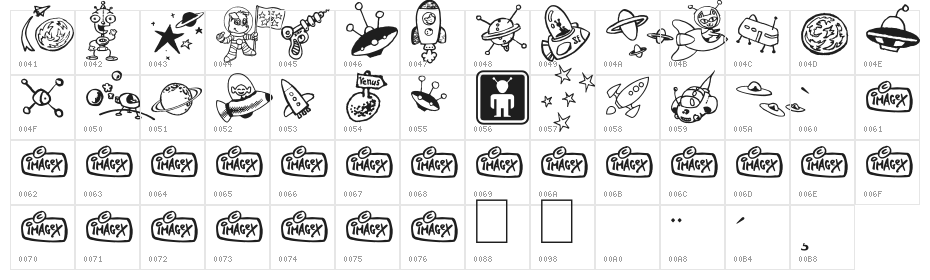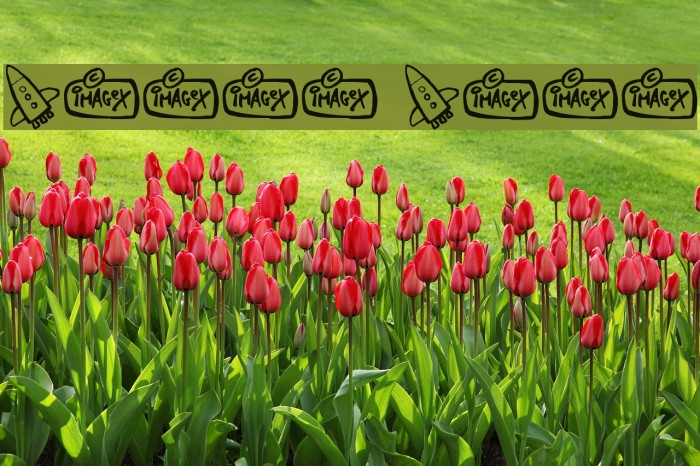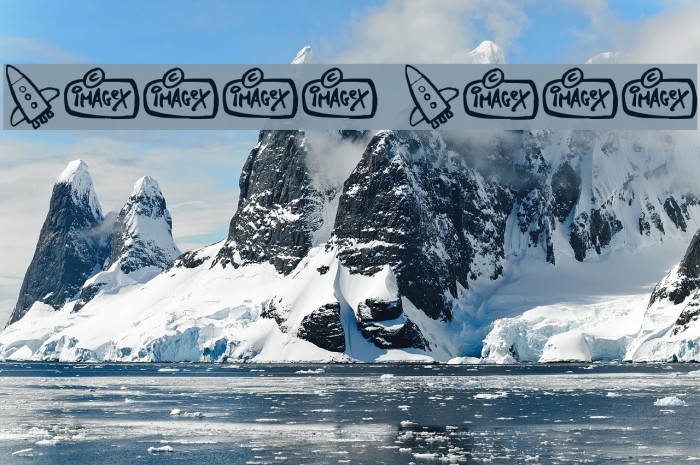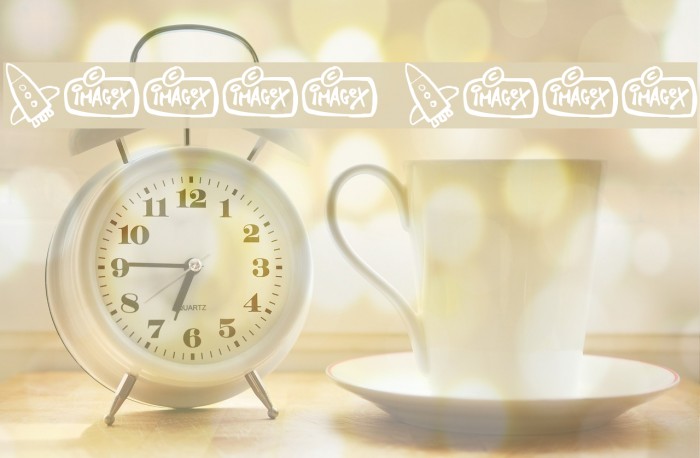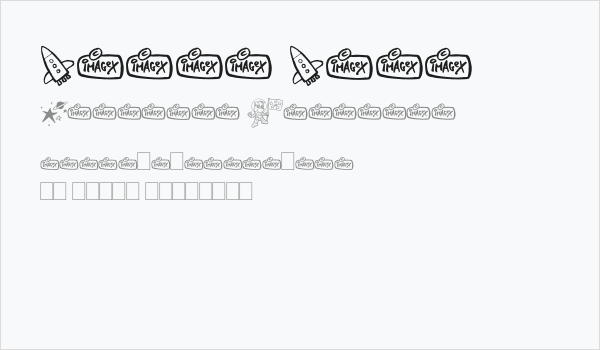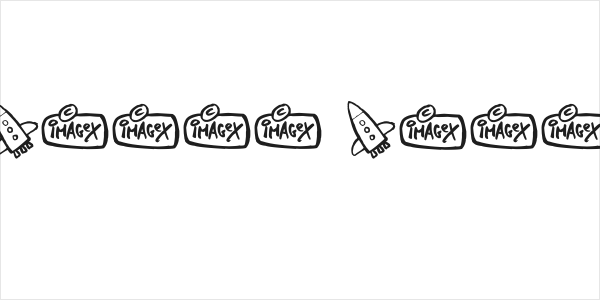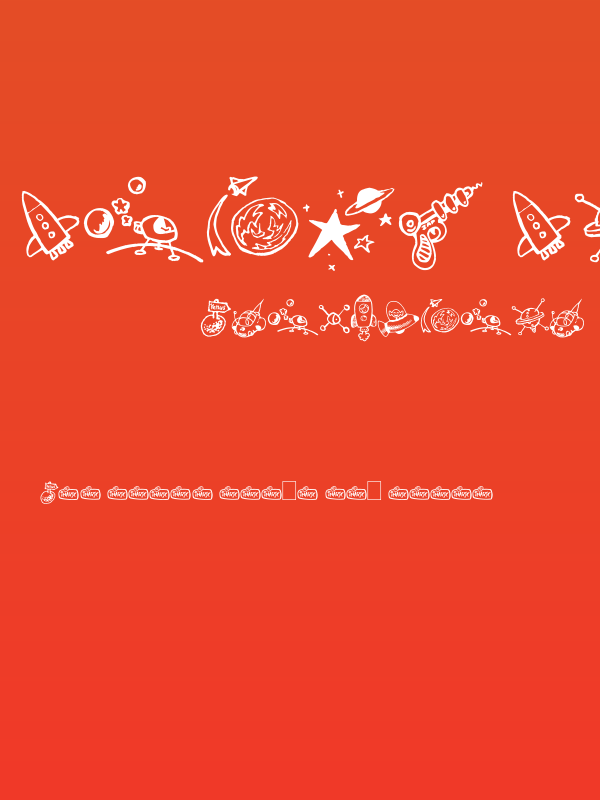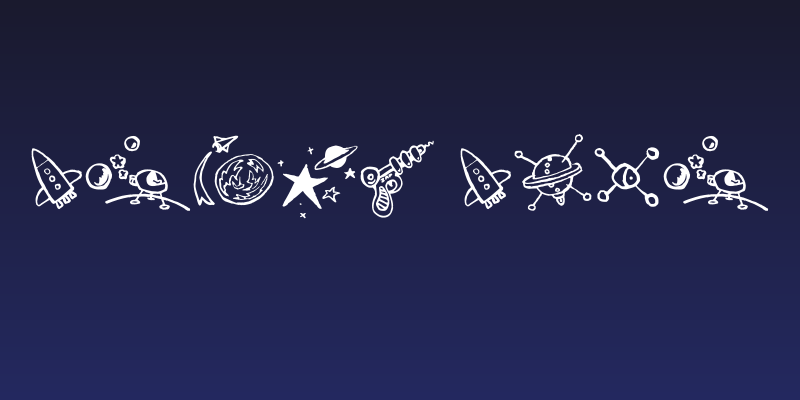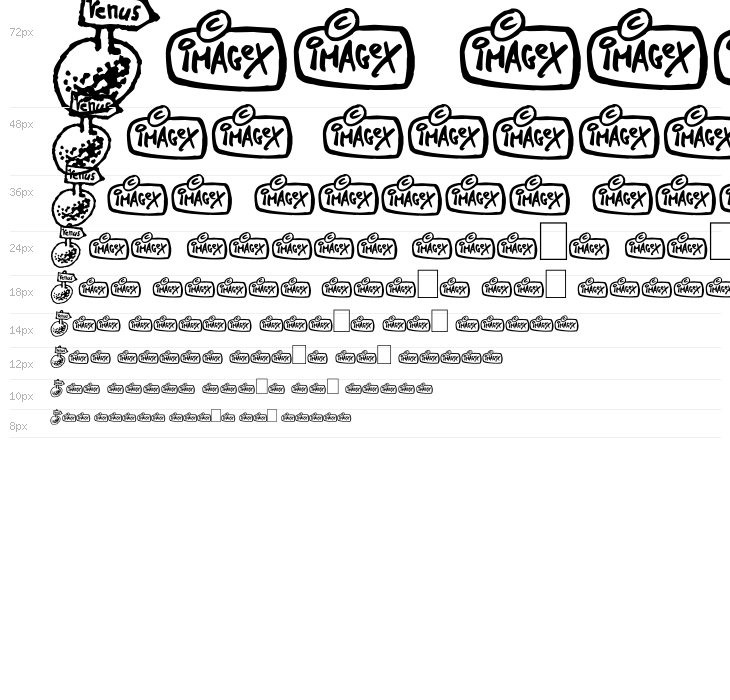
Space Shop Font
Space Shop Description
A playful, hand-drawn decorative font featuring whimsical space-themed doodles such as rockets, planets, astronauts, aliens, and stars. The characters are cartoonish and outlined, with varying line thickness and a casual, informal style.
| Overall Style | Decorative, Playful, Whimsical |
| Use Case | Logos, Headlines, Posters, Themed Graphics |
| Proposed Projects | Children's books, party invitations, educational materials, themed posters, greeting cards. |